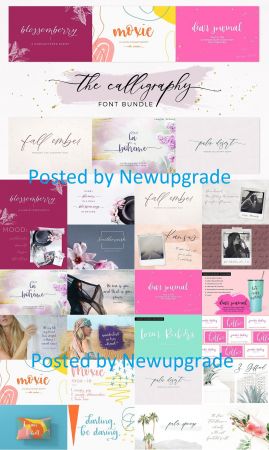
DesignOptimal - Creativemarket - The Calligraphy Font Bundle 4505490
Say hello to this gorgeous handcrafted Calligraphy Font Bundle! It includes my top modern calligraphy & bounce calligraphy releases…and plenty of swashy goodness! This bundle includes $80 worth of fonts for only $18!